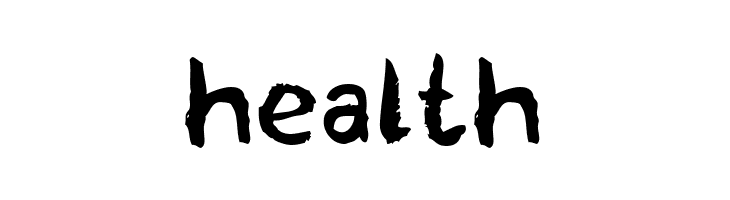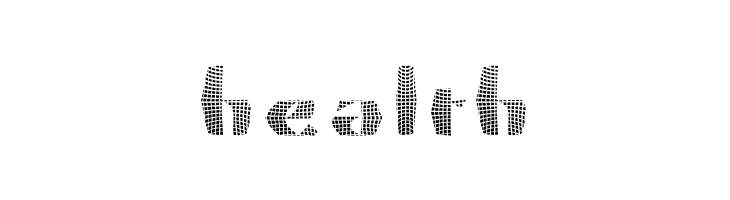
PapaKilo Decorative Font
A decorative font with intricate geometric and abstract patterns.
Sketch Nothing Font
A bold, sketch-style font with a hand-drawn, textured appearance.
Linux Biolinum Slanted Bold Font
A bold, slanted, and modern font with elegant curves and strong presence.
Typographer Uncialgotisch Font
A bold, gothic-inspired font with sharp, angular lines and a medieval touch.
Silverweed Font
A graceful script font with flowing, elegant strokes and refined curves.
Summer Sans Font
A tall, narrow, and modern font with a sleek, minimalistic design.
Milcandy Font
A playful and elegant script font with a flowing, handwritten style.
Fineberg Demo Font
A bold, cursive font with smooth, flowing lines and elegant flourishes.
The Wave Font
A dynamic, flowing script font with a natural handwriting style.
Mille Font
A bold, geometric sans-serif font with a modern and structured design.
Angel Maleficent Font
An elegant and whimsical script font with ornate curls and loops.
Monas Font
A playful, bold font with rounded, whimsical characters.
Magicalnotes Font
A playful, handwritten font with bold, rounded characters and a whimsical style.
september Font